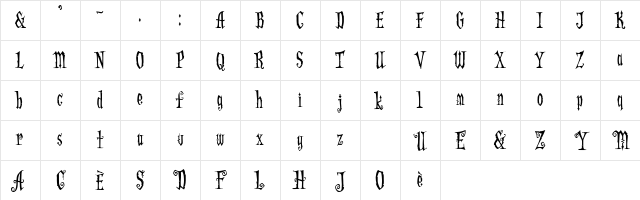
Addams Regular Free Font
Addams Regular
Design Context for Addams
Addams is a composed and adaptable typeface that performs quietly and consistently across a wide range of design contexts.